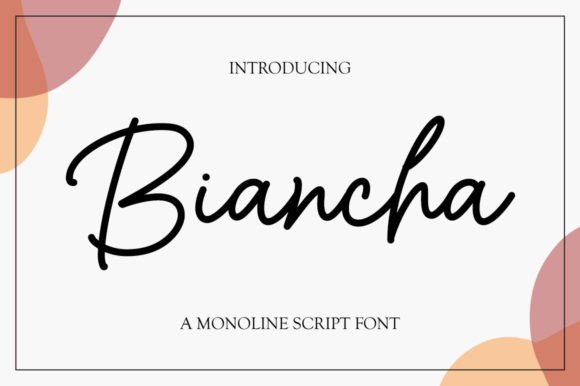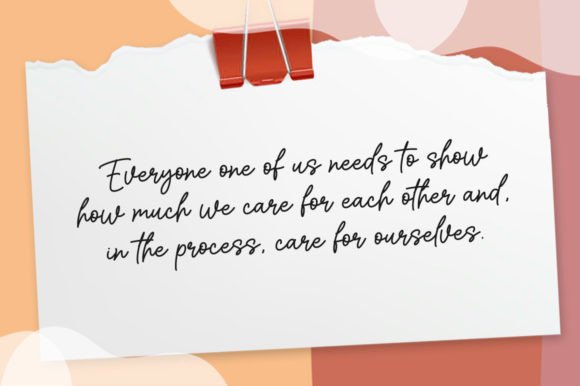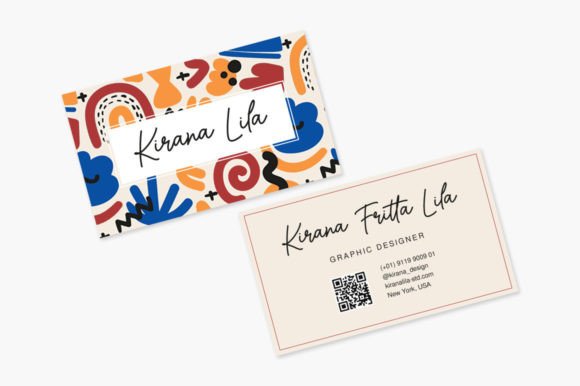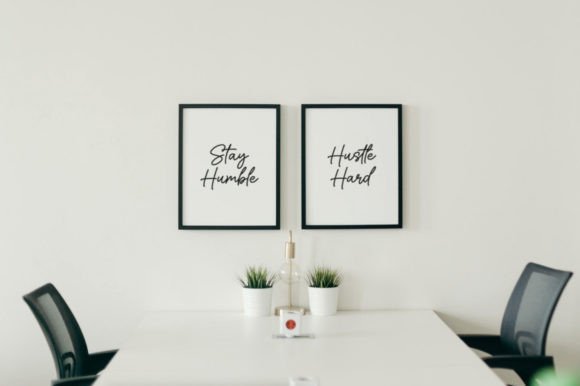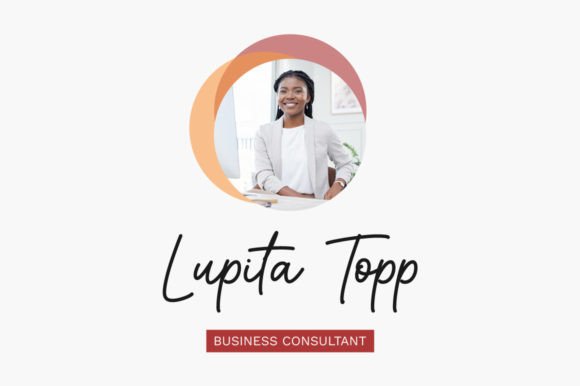
About Biancha Font
Biancha is an exquisite and harmoniously crafted script font with a contemporary style. Its defining features include smooth, elegant curves that lend it a distinct and modern appeal. This font is particularly well-suited for fashion branding and editorial design, where its graceful aesthetic can elevate the visual impact of your projects.
Biancha’s beauty lies in its balanced design, where every curve and stroke is meticulously crafted to create a sense of harmony and refinement. This meticulous attention to detail ensures that the font maintains a sleek and contemporary appearance.
For fashion branding, Biancha is an ideal choice to represent your brand’s identity. Its elegant script style conveys a sense of sophistication and style, aligning perfectly with the fashion industry’s aesthetics. Whether used in logos, clothing tags, or promotional materials, Biancha adds a touch of luxury and elegance to your brand.
In the world of editorial design, this font brings a fresh and modern perspective. It can be used for headlines, titles, or body text, enhancing the overall visual appeal of magazines, lookbooks, and other editorial layouts.
Biancha’s smooth curves and modern style make it a versatile asset for various design projects. Whether you’re looking to create an upscale fashion campaign, design an elegant editorial spread, or add a touch of sophistication to any creative endeavor, Biancha is a font that epitomizes beauty, balance, and contemporary style.